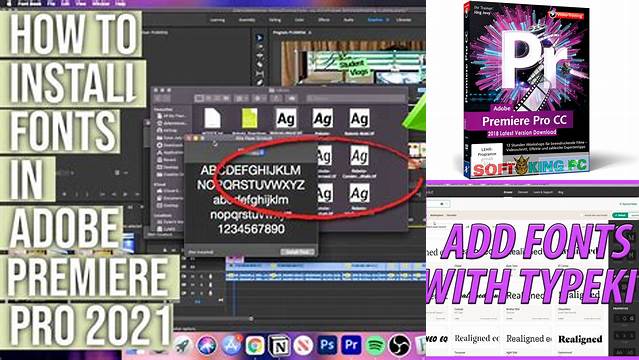
Free Fonts For Premiere Pro CC: Download Now!
Hey guys! Ever feel like your videos are missing that special something? A lot of times, it's the fonts! Choosing the right font can elevate your video from 'meh' to amazing. And the best part? You don't have to break the bank to get awesome typography. This guide will show you how to download free fonts for Adobe Premiere Pro CC and make your videos pop! So, let's dive in and get those creative juices flowing!
1. Why Fonts Matter in Video Editing
Download free fonts for Adobe Premiere Pro CC is more than just a way to save money. It's about finding the perfect visual voice for your content. Think about it – the fonts you use create a mood, convey information, and reinforce your brand. A playful font might be great for a children's video, but it'd look totally out of place in a serious documentary. Fonts impact readability; a poorly chosen font can make your message impossible to understand. This leads to viewers tuning out, and nobody wants that! Using the right font enhances professionalism, making your videos look polished and credible. It's a simple change that can make a huge difference in how your audience perceives your work. So, download free fonts for Adobe Premiere Pro CC and start experimenting with how typography can transform your videos!
3. Best Websites to Find Free Fonts
Okay, now for the fun part! Where can you download free fonts for Adobe Premiere Pro CC? Luckily, the internet is full of amazing resources. Here are a few of my favorite websites: Google Fonts is a classic choice. They offer a huge library of fonts that are all completely free and open source. That means you can use them for anything you want, without worrying about licensing issues. DaFont is another great option, with a wide variety of fonts in different styles. Be sure to check the license for each font before downloading! Font Squirrel is another fantastic resource, with a focus on high-quality, free-for-commercial-use fonts. They also have a handy Font Identifier tool that can help you find a similar font if you see one you like. These are just a few of the many websites out there. With a little searching, you're sure to find the perfect fonts for your next video project.
5. Using Fonts Effectively in Premiere Pro
Alright, you've got your download free fonts for Adobe Premiere Pro CC, you've installed them, and now it's time to put them to work! But simply having a lot of fonts doesn't guarantee a great-looking video. It's important to use fonts effectively to enhance your message and create a professional look. Here are a few tips: Limit the number of fonts you use. Sticking to two or three fonts max will keep your video looking clean and consistent. Choose fonts that complement each other. A good rule of thumb is to pair a display font (for titles and headings) with a simpler sans-serif font (for body text). Pay attention to font size and spacing. Make sure your text is readable and that the letters aren't too close together or too far apart. Use different font weights and styles (bold, italic, etc.) to create emphasis and visual interest. Experiment with different font combinations to find what works best for your video. With a little practice, you'll be a font pro in no time!
6. Pairing Fonts for Visual Harmony
The art of download free fonts for Adobe Premiere Pro CC isn’t just about snagging cool typefaces; it's about making them work together. Think of fonts like members of a band – each has its own personality, but they need to harmonize to create beautiful music. Pairing fonts effectively involves choosing fonts that complement each other, creating a visually appealing and balanced design. A classic pairing strategy involves combining a serif font (like Times New Roman or Georgia) with a sans-serif font (like Arial or Helvetica). Serifs tend to be more traditional and formal, while sans-serifs are often perceived as modern and clean. Another approach is to pair fonts from the same family but with different weights or styles. For instance, you could use Open Sans Bold for headings and Open Sans Regular for body text. The key is to experiment and find combinations that feel right for your project. Online resources like font pairing generators can also provide inspiration and guidance.
7. Exploring Different Font Styles
One of the best things about download free fonts for Adobe Premiere Pro CC is the sheer variety of styles available. From elegant scripts to bold display fonts, there's a typeface for every mood and message. Script fonts are great for adding a touch of personality and flair, but they should be used sparingly, as they can be difficult to read in large blocks of text. Display fonts are designed to grab attention and are perfect for titles and headings. Serif fonts convey a sense of tradition and authority, while sans-serif fonts are often associated with modernity and simplicity. Experimenting with different font styles can help you find the perfect visual voice for your videos. Don't be afraid to try something unexpected – you might be surprised at the results!
8. Kerning, Tracking, and Leading: Mastering Typography
Okay, so you've got your download free fonts for Adobe Premiere Pro CC, but to really make your text look professional, you need to understand kerning, tracking, and leading. These are the secret ingredients that separate amateur typography from the stuff you see in magazines. Kerning refers to the space between individual letters. Adjusting the kerning can improve readability and make your text look more balanced. Tracking is the overall spacing between all the letters in a word or line of text. Increasing the tracking can make your text feel more airy and open, while decreasing it can make it feel more dense. Leading (pronounced "ledding") is the space between lines of text. Adjusting the leading can improve readability and prevent lines of text from feeling too cramped or too spaced out. Mastering these typographic techniques will take your videos to the next level!
9. Creating Text Animations in Premiere Pro
Download free fonts for Adobe Premiere Pro CC is just the first step. Now, let's talk about making those fonts dance! Premiere Pro offers a ton of built-in tools for creating text animations. You can animate the position, scale, rotation, and opacity of your text layers to create dynamic and engaging effects. Use the Effect Controls panel to add keyframes and create animations over time. Experiment with different easing options to make your animations look smooth and natural. You can also use Premiere Pro's built-in text presets to quickly add pre-designed animations to your text layers. Text animations can add a lot of visual interest to your videos and help you grab your audience's attention.
10. Using Text Templates for Efficiency
Time is money, right? That's why download free fonts for Adobe Premiere Pro CC and then using text templates can be a huge time-saver! Text templates are pre-designed text layouts that you can easily customize with your own text and fonts. Premiere Pro comes with a bunch of built-in text templates, and you can also find tons of free and premium templates online. Using text templates can help you create professional-looking text graphics quickly and easily. Simply import the template into your project, customize the text and fonts, and you're good to go! Text templates are a great way to maintain a consistent look and feel across all your videos.
11. Essential Font Categories for Video Editors
When you download free fonts for Adobe Premiere Pro CC, knowing the main font categories can seriously streamline your search. Think of it like knowing your way around a grocery store—you know where to find the ingredients you need! Here's a quick rundown: Serif fonts are classic and elegant, great for conveying authority or tradition. Think Times New Roman or Garamond. Sans-serif fonts are clean and modern, perfect for a contemporary look. Arial and Helvetica are popular choices. Script fonts add a touch of personality and flair, ideal for titles or accent text, but use them sparingly! Display fonts are designed to grab attention, so they're excellent for headings and titles. Monospace fonts have equal width for each character, giving a typewriter-like appearance. Knowing these categories helps you narrow down your choices and find the right font for your project.
12. Ensuring Font Readability on Different Screens
It's crucial to remember that when you download free fonts for Adobe Premiere Pro CC, that they need to look good everywhere! Your video might be watched on a tiny phone screen or a huge TV, so readability is key. Choose fonts with clear, well-defined letterforms. Avoid overly decorative or intricate fonts that can become illegible at smaller sizes. Consider the contrast between your text and background. Use light text on dark backgrounds or dark text on light backgrounds for optimal readability. Test your video on different devices and screen sizes to make sure your text is still easy to read. Adjust the font size, tracking, and leading as needed to optimize readability for different viewing conditions.
13. Creating a Font Library for Future Projects
Once you download free fonts for Adobe Premiere Pro CC that you love, organize them! Building a font library is like having a well-stocked toolbox for your video editing projects. Create folders for different font categories (serif, sans-serif, script, etc.) to keep things organized. Use a font management tool to preview and activate/deactivate fonts as needed. Regularly back up your font library to prevent data loss. When starting a new project, browse your font library for inspiration. Having a curated collection of fonts will save you time and help you create consistent and professional-looking videos.
14. The Psychology of Fonts: Choosing the Right Mood
Believe it or not, download free fonts for Adobe Premiere Pro CC is also about psychology! Fonts can evoke different emotions and associations. Serif fonts often convey a sense of trustworthiness and authority, making them suitable for serious or professional videos. Sans-serif fonts tend to feel more modern and approachable, making them a good choice for tech or lifestyle content. Script fonts can add a touch of elegance or romance, but they should be used carefully to avoid appearing cheesy. Display fonts can grab attention and create excitement, but they should be used sparingly to avoid overwhelming the viewer. Consider the overall mood and message of your video when choosing fonts.
15. Common Font Mistakes to Avoid
Even after you download free fonts for Adobe Premiere Pro CC, there are some common pitfalls to watch out for! Overusing decorative fonts is a big one. While they might look cool, too much can make your video look cluttered and unprofessional. Using too many different fonts is another no-no. Stick to a maximum of two or three fonts per video to maintain a consistent look. Ignoring font readability is a common mistake, especially when using small font sizes or low-contrast colors. Failing to check font licenses can lead to legal trouble. Always read the license agreement before using any font. Avoiding these common mistakes will help you create polished and professional-looking videos.
16. Finding Font Inspiration Online
Need a spark of creativity? When you download free fonts for Adobe Premiere Pro CC and still feel stuck, look online for font inspiration. Websites like Behance and Dribbble showcase amazing design projects that often feature creative typography. Pay attention to the font pairings, color palettes, and overall design aesthetics. Look at movie posters, book covers, and magazine layouts for inspiration. Follow typography-related accounts on social media. Online font galleries can also provide inspiration. Don't be afraid to experiment and try new things. The key is to find what works best for your video and your brand.
17. Creating Custom Font Combinations
Ready to take your typography skills to the next level? Instead of just download free fonts for Adobe Premiere Pro CC and using them as-is, try creating your own custom font combinations! Start by experimenting with different font pairings. Try combining a serif font with a sans-serif font, or a display font with a simpler body font. Pay attention to the font weights, styles, and sizes. Adjust the kerning, tracking, and leading to fine-tune the appearance of your text. Use online font pairing tools for inspiration, but don't be afraid to break the rules and create something unique. The goal is to create font combinations that are visually appealing, readable, and consistent with your brand.
18. Using Font Management Software
If you download free fonts for Adobe Premiere Pro CC regularly, you'll quickly accumulate a huge collection. Font management software can help you keep things organized and prevent font conflicts. These tools allow you to preview fonts, activate/deactivate fonts as needed, and organize fonts into collections. Some font management software also includes features like font repair and font syncing. Popular font management tools include FontBase, NexusFont, and RightFont. Using font management software can save you time and headaches, especially if you work with a lot of different fonts.
19. Optimizing Fonts for Video Performance
Did you know that your choice when you download free fonts for Adobe Premiere Pro CC can affect your video's performance? Complex or overly detailed fonts can slow down your editing software and increase rendering times. Choose fonts that are optimized for video use. Avoid using too many different fonts in a single project. Simplify your text graphics whenever possible. If you're experiencing performance issues, try rasterizing your text layers to reduce the processing load. Optimizing your fonts can help you create smoother and faster-loading videos.
20. Incorporating Handwriting Fonts for a Personal Touch
Want to add a personal touch to your videos? When you download free fonts for Adobe Premiere Pro CC, consider including handwriting fonts. These fonts mimic the look of handwritten text, adding a sense of authenticity and warmth to your videos. Use handwriting fonts for titles, captions, or annotations. Pair them with simpler sans-serif fonts for a balanced look. Be careful not to overuse handwriting fonts, as they can be difficult to read in large blocks of text. Handwriting fonts are a great way to make your videos feel more personal and engaging.
21. Finding and Using Retro Fonts for Nostalgic Videos
Time for a blast from the past! You can download free fonts for Adobe Premiere Pro CC that evoke a sense of nostalgia by using retro fonts. These fonts are inspired by the typography of past decades, from the Art Deco era to the 1980s. Use retro fonts to create vintage-themed videos, throwback segments, or nostalgic titles. Pair them with appropriate color palettes and visual elements to enhance the retro effect. Some popular retro font styles include slab serifs, script fonts, and geometric sans-serifs. Retro fonts are a fun way to add character and personality to your videos.
22. Creating Kinetic Typography with Free Fonts
Let's get moving! Download free fonts for Adobe Premiere Pro CC and then try your hand at kinetic typography, a visually dynamic technique where text is animated to convey meaning and emotion. Use Premiere Pro's animation tools to create engaging text animations. Animate the position, scale, rotation, and opacity of your text layers. Experiment with different easing options to create smooth and natural-looking animations. Use kinetic typography to emphasize key words or phrases, tell stories, or create visually stunning effects. Kinetic typography is a great way to grab your audience's attention and make your videos more memorable.
23. Using Free Fonts for Lower Thirds and Titles
Lower thirds and titles are essential elements of any video. When you download free fonts for Adobe Premiere Pro CC, make sure you choose fonts that are readable and visually appealing. Use clear and concise text. Choose fonts that complement the overall style of your video. Use consistent font styles and sizes for all your lower thirds and titles. Pay attention to the placement and timing of your lower thirds and titles. They should be easy to read and not obstruct important visual elements. Free fonts can help you create professional-looking lower thirds and titles without breaking the bank.
24. Adding Text Shadows and Outlines with Free Fonts
Want to make your text stand out? When you download free fonts for Adobe Premiere Pro CC, experiment with adding text shadows and outlines. These effects can help your text pop off the screen and improve readability. Use subtle shadows to create depth and dimension. Use outlines to define the edges of your text and make it more visible against busy backgrounds. Be careful not to overuse shadows and outlines, as they can make your text look cluttered and unprofessional. Experiment with different colors and sizes to find the perfect balance.
25. Creating a Consistent Brand Identity with Free Fonts
Branding is key! When you download free fonts for Adobe Premiere Pro CC, choose fonts that align with your brand identity. Use consistent fonts across all your videos, website, and social media channels. Choose fonts that reflect your brand's personality and values. Create a style guide that outlines your font choices, color palettes, and other branding elements. A consistent brand identity will help you build recognition and establish a professional image.
26. Free Font Resources for Different Languages
Need fonts for languages other than English? When you download free fonts for Adobe Premiere Pro CC, remember that not all fonts support all languages. Google Fonts is a great resource for finding fonts that support multiple languages. Look for fonts that include the character sets you need. Test your fonts to make sure they display correctly in your target language. Using the right fonts for different languages can help you reach a wider audience and create more inclusive videos.
27. Mobile-Friendly Font Choices for Video
With so many people watching videos on their phones, it's important to download free fonts for Adobe Premiere Pro CC with mobile in mind. Choose fonts that are readable on small screens. Avoid using overly decorative or intricate fonts. Use larger font sizes and adjust the tracking and leading to improve readability. Test your videos on different mobile devices to make sure your text looks good. Mobile-friendly font choices will ensure that your videos are enjoyable to watch on any device.
28. Font Pairing Tools and Resources Online
Struggling to find the perfect font combinations? Don't worry, there are plenty of font pairing tools and resources online! These tools can help you download free fonts for Adobe Premiere Pro CC and discover complementary fonts that work well together. Some popular font pairing tools include FontPair, Canva Font Combinations, and Adobe Creative Cloud. These tools provide suggestions for font pairings based on different styles, moods, and industries. Experiment with different font combinations to find what works best for your video.
29. Troubleshooting Font Issues in Premiere Pro
Sometimes, things go wrong. If you download free fonts for Adobe Premiere Pro CC and they don't show up, here's what to do! Make sure the font is properly installed on your computer. Restart Premiere Pro. Clear your font cache. Check for font conflicts. Update your graphics card drivers. If you're still having trouble, try contacting Adobe support or searching online forums for solutions. Troubleshooting font issues can be frustrating, but with a little patience, you'll get your fonts working properly.
30. The Future of Typography in Video Editing
What's next for fonts in video? As technology evolves, expect to download free fonts for Adobe Premiere Pro CC in even more innovative ways! We'll likely see more dynamic and interactive typography, AI-powered font recommendations, and seamless integration of fonts across different platforms and devices. The future of typography in video editing is exciting, with endless possibilities for creativity and expression. Stay tuned to see what the future holds!